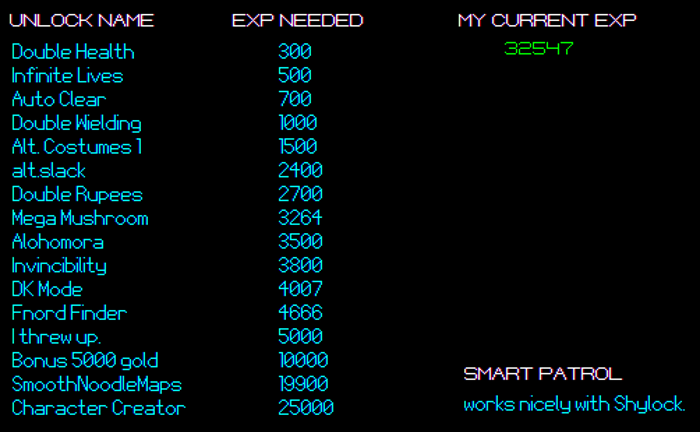
Shylock NBP Font
A pixel font ideal for main text on small displays (use with Smart Patrol NBP for maximum effectiveness!)
CHANGES IN VERSION 1.1:
-Fixed a design issue with lowercase "y"
-Added Extended Latin, Cyrillic, and Greek/Coptic characters